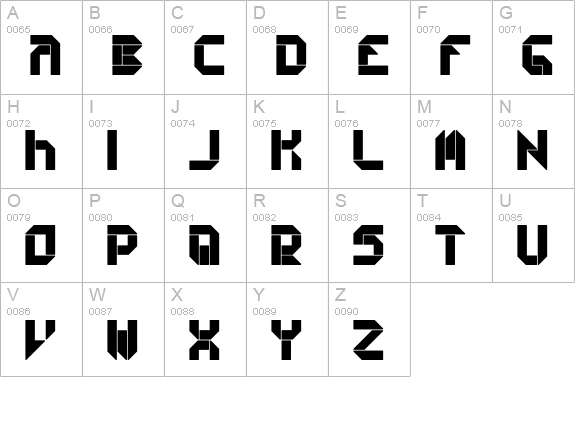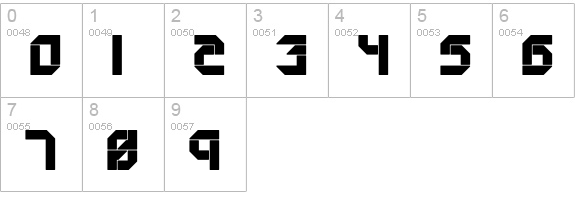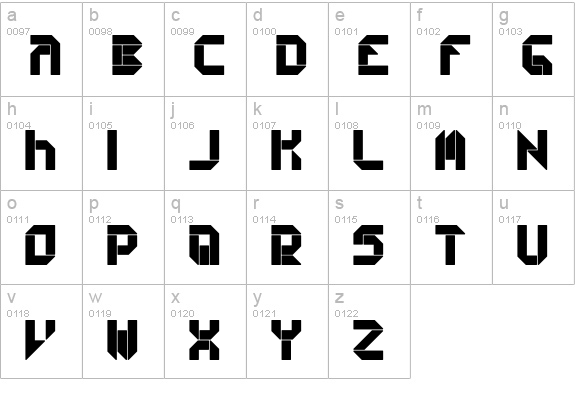
Collective S (BRK) is a striking and modern font that exudes a sense of sophistication and versatility. With its clean lines and contemporary style, this typeface is perfect for a wide range of design projects, from branding to editorial work. The font features a sleek and stylish design that is sure to make a statement in any application. What sets Collective S (BRK) apart is its unique blend of elegance and simplicity, making it a truly versatile typeface that can be used in a variety of contexts. Whether you're looking to create a sleek and professional look or a bold and eye-catching design, Collective S (BRK) has you covered. Best of all, Collective S (BRK) is available for free download at FontsMarket.com, making it accessible to anyone looking to add a touch of sophistication to their projects. With its sleek design and modern appeal, Collective S (BRK) is sure to become a go-to font for designers looking to make a statement.